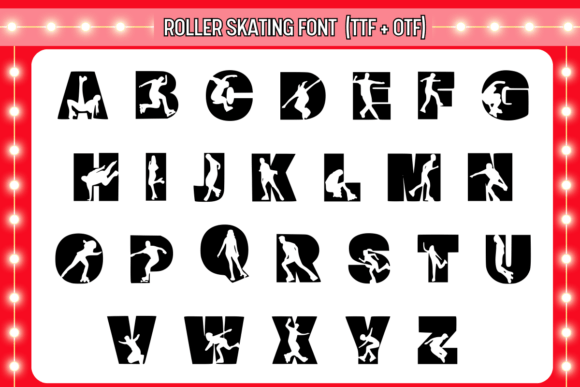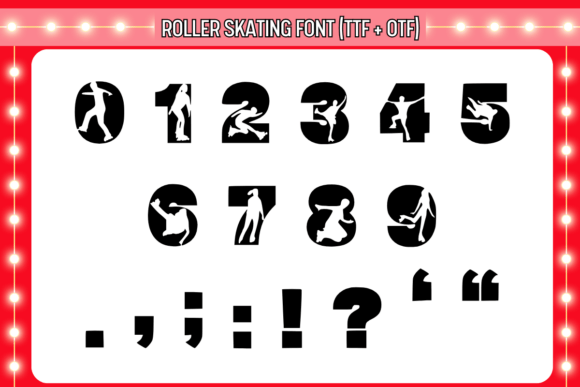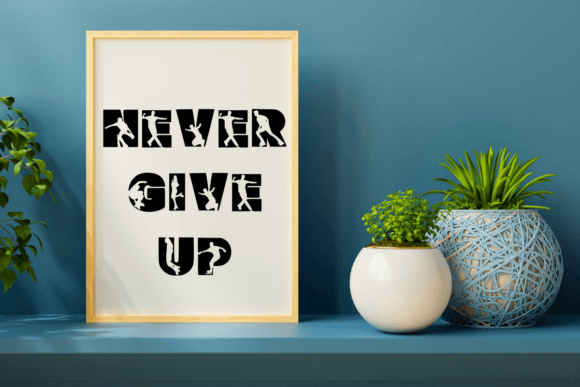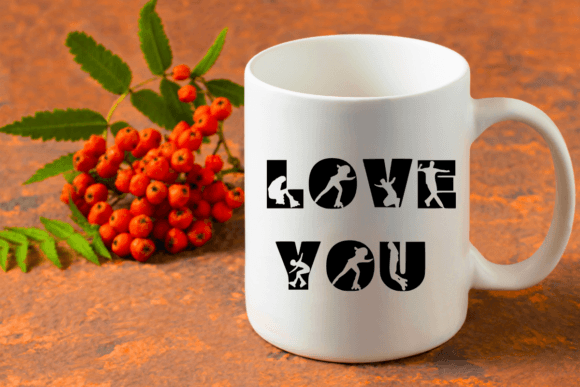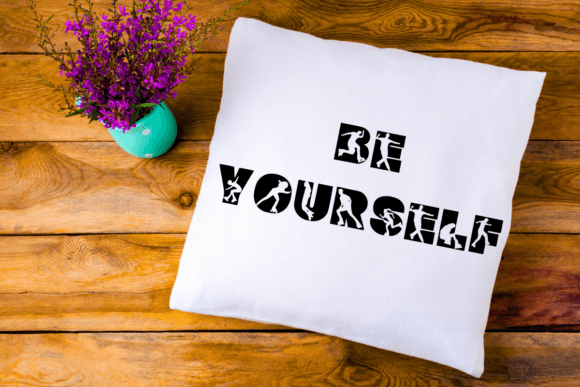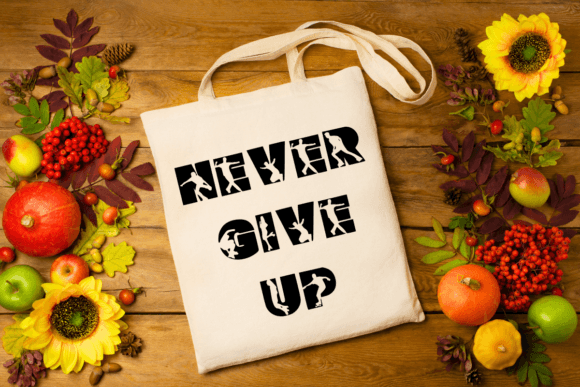
Introduction to Roller Skating Font
Have you ever found yourself rummaging through your old VHS tapes, searching for that one iconic roller disco scene from the 70s? The flashing lights, the disco ball spinning, and the sound of wheels gliding across the floor – it’s a moment that sparks creativity and nostalgia. If you’re a designer, you’re likely always on the lookout for unique design resources to bring your projects to life. That’s where the Roller Skating Font comes in.
This high-quality typeface features silhouettes of roller skaters incorporated into each letter, giving it a dynamic and playful vibe. With a transparent background, you can easily place it over any image or design element, making it a versatile resource for any creative project. And the best part? It’s free to download, making it an accessible addition to your design arsenal.
Key Features of Roller Skating Font
- High-quality design resource perfect for creative projects, including posters, flyers, and social media graphics.
- Features a unique, hand-drawn style with bold lines and playful characters, ideal for adding a touch of whimsy to your designs.
- Includes a transparent background, making it easy to place over any image or background without worrying about distracting edges or borders.
Honest Review: Roller Skating Font
I recently stumbled upon the Roller Skating Font, and I must say it’s been a refreshing addition to my design resource library. The font is available for free download, which is a major plus for those on a tight budget.
- ✨ The font’s high quality is immediately apparent, with crisp and clear lettering that’s perfect for creative projects.
- ✨ I appreciate the transparent background option, which allows for seamless integration with any design element.
However, I do have a few minor complaints. Firstly, ⚠️ the font’s limited character set might be a drawback for those who need a more comprehensive font library. Additionally, ⚠️ the font’s lack of bold or italic variations might limit its versatility in certain design applications.
Overall, I’m impressed with the Roller Skating Font’s unique charm and design. While it may have some limitations, it’s a great option for designers looking for a fun and quirky font for their next creative project.
The Roller Skating Font is a versatile design resource that can be used in a variety of creative projects, including:
- Presentation slides
- Documents and reports
- Merchandise and apparel
Skateboarder Font
Skateboarder Font is a fun, energetic font designed for designers working on creative projects that require a playful touch. It features a bold, graffiti-inspired design that’s perfect for use on websites, social media, and print materials. This font is great for designers who want to add a touch of whimsy to their design.
Is the Roller Skating Font suitable for use in logos and branding?
Yes, the Roller Skating Font is a high-quality font that can be used for logos and branding. Its unique design makes it perfect for creative projects that require a fun and playful touch. With its transparent background, it’s easy to use the font in combination with other design elements.